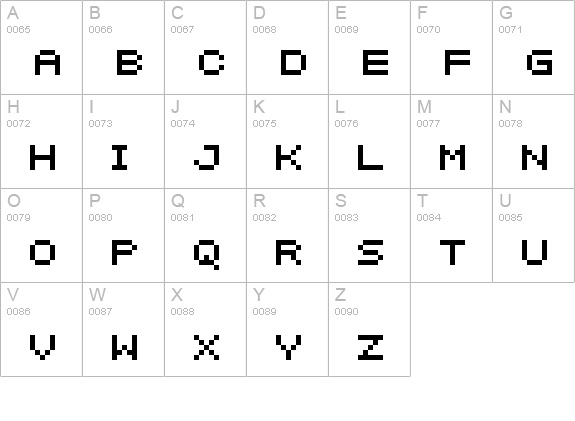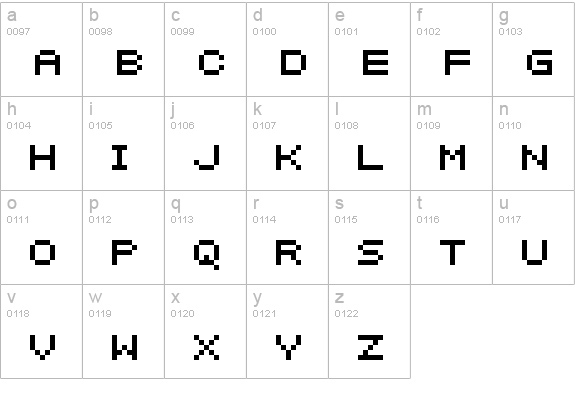
SF Intermosaic Font Details
SF Intermosaic is a stunning and versatile font that is sure to captivate the eyes of designers and typographers alike. With its unique blend of geometric shapes and intricate mosaic patterns, this font brings a touch of modernity and sophistication to any project. Designed with utmost care and attention to detail, SF Intermosaic offers a wide range of characters, from uppercase and lowercase letters to numbers and special symbols, allowing you to unleash your creativity and bring your designs to life. Its clean lines and well-defined edges make it perfect for both print and digital applications. What sets SF Intermosaic apart is its ability to seamlessly blend in with various design styles, whether it's a sleek and contemporary look or a retro-inspired aesthetic. The font's versatility makes it a go-to choice for branding, logo design, headlines, posters, and more. But the best part? SF Intermosaic is absolutely free. That's right, you can download this incredible font at FontsMarket.com without spending a dime. This means that you can use it in personal and commercial projects without any restrictions or limitations. It's a fantastic opportunity to enhance your design toolbox and elevate your work without breaking the bank. So, don't miss out on the chance to add SF Intermosaic to your font collection. Download it today from FontsMarket.com and unlock a world of creative possibilities. Let this remarkable font become the centerpiece of your next design masterpiece.